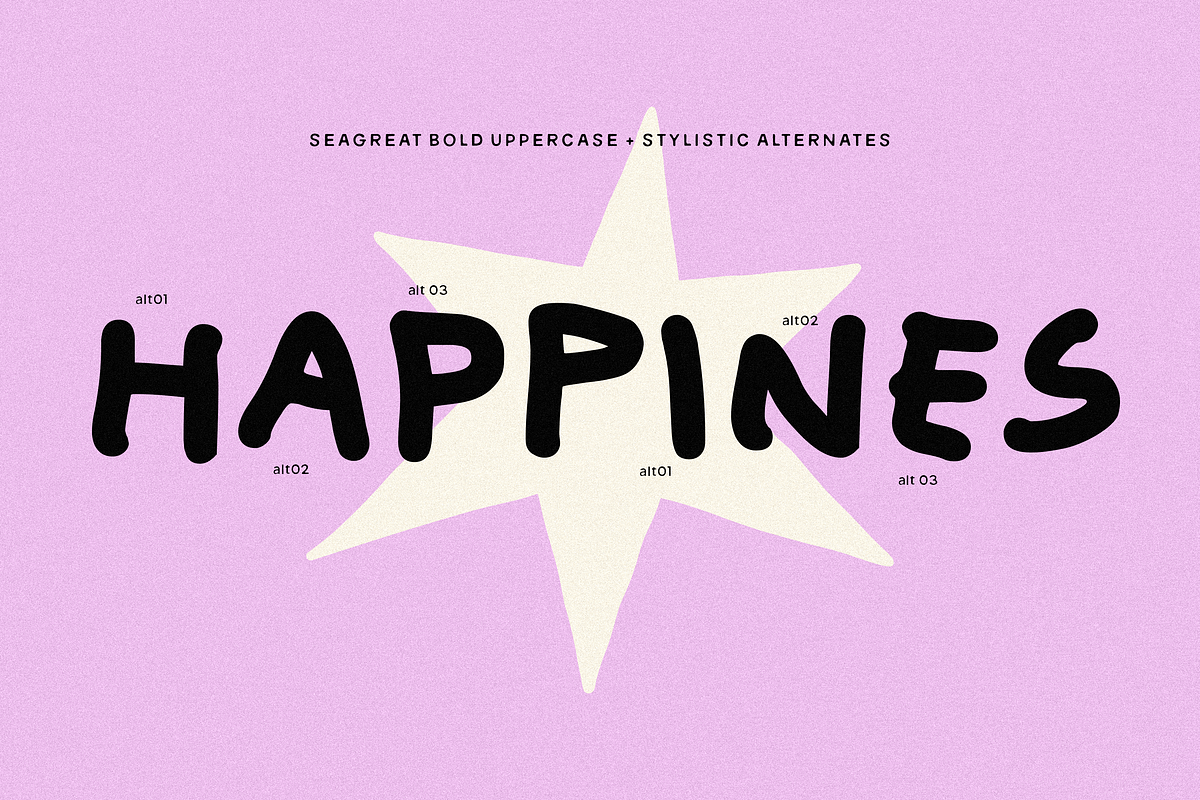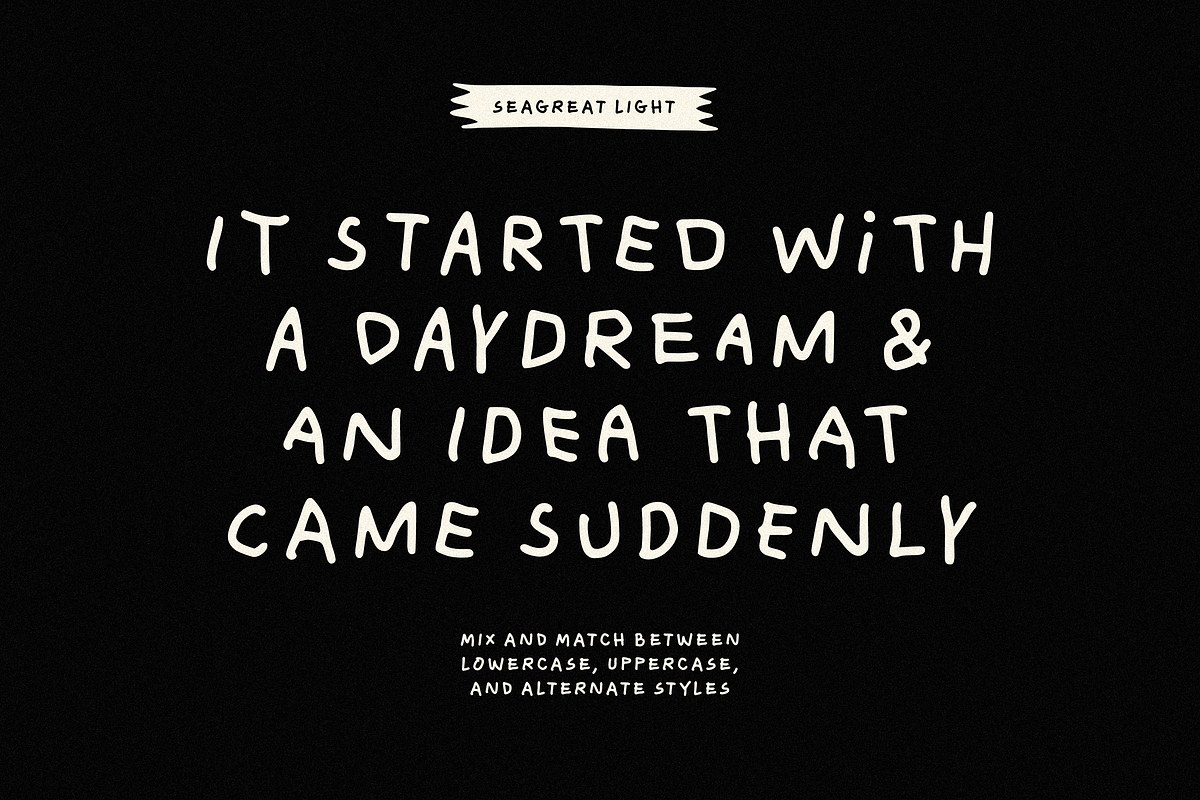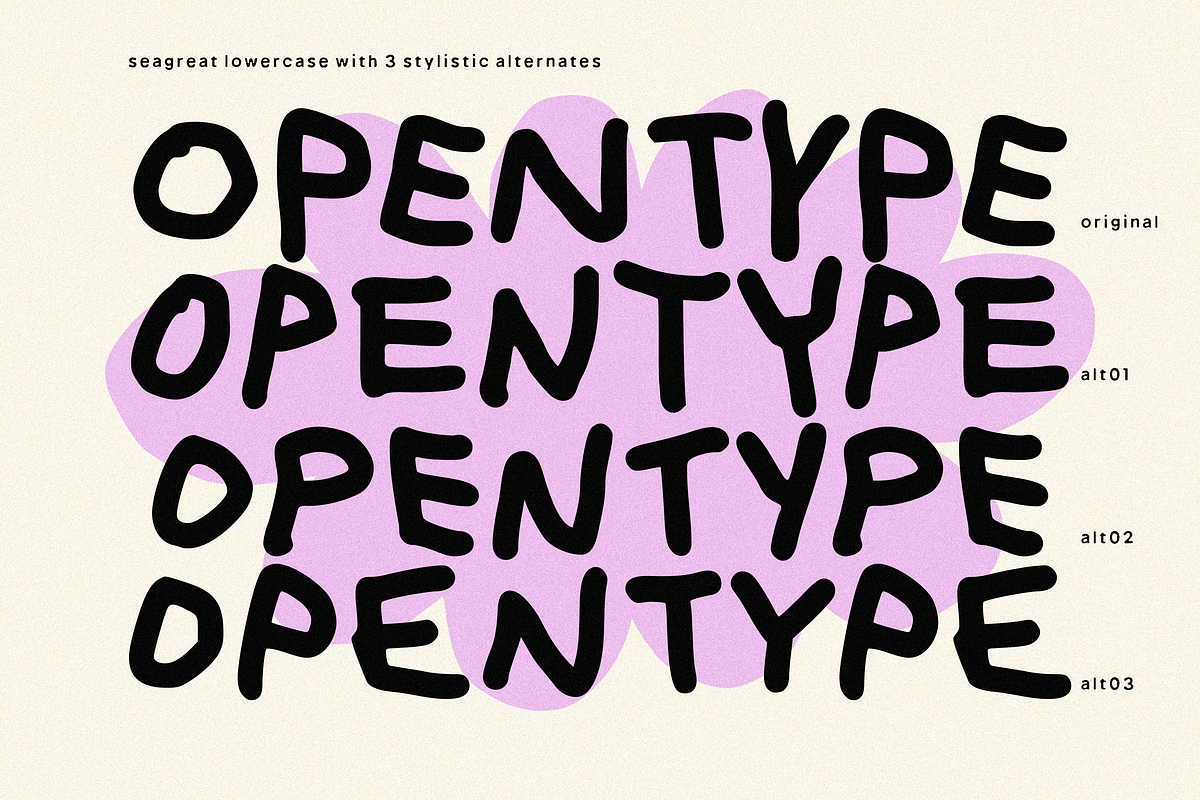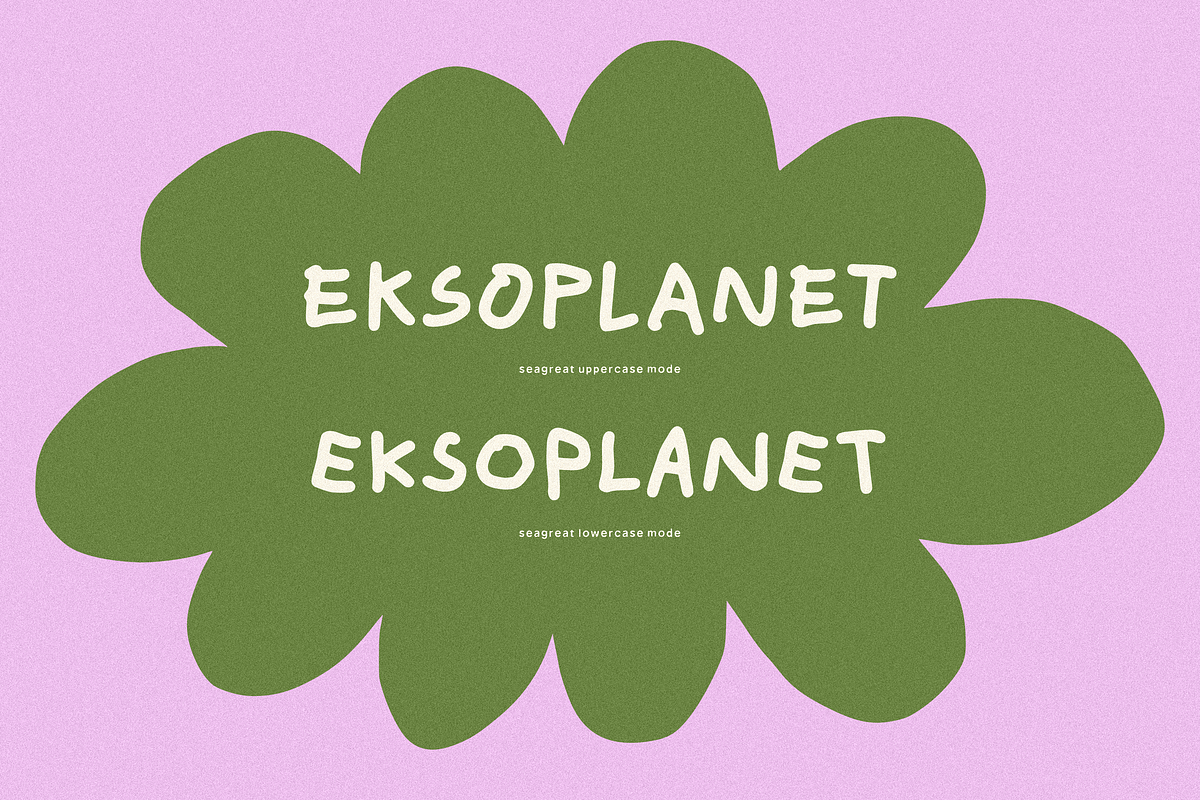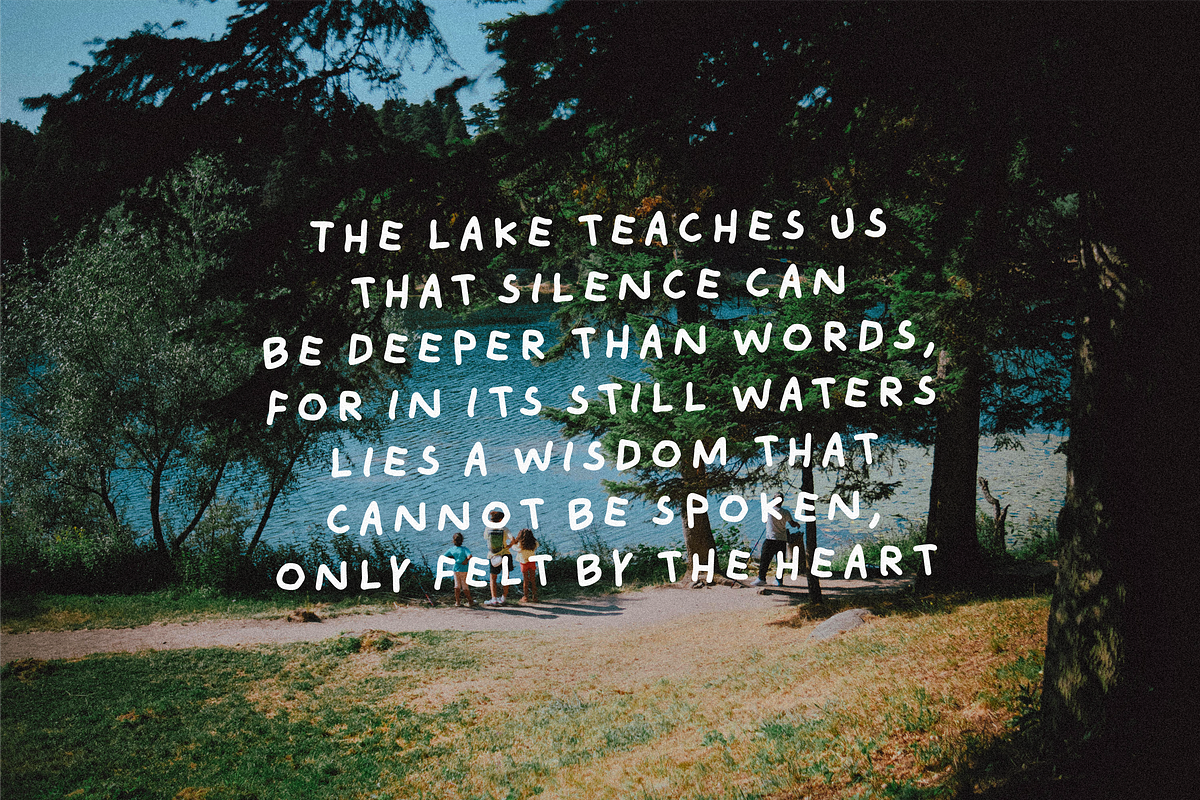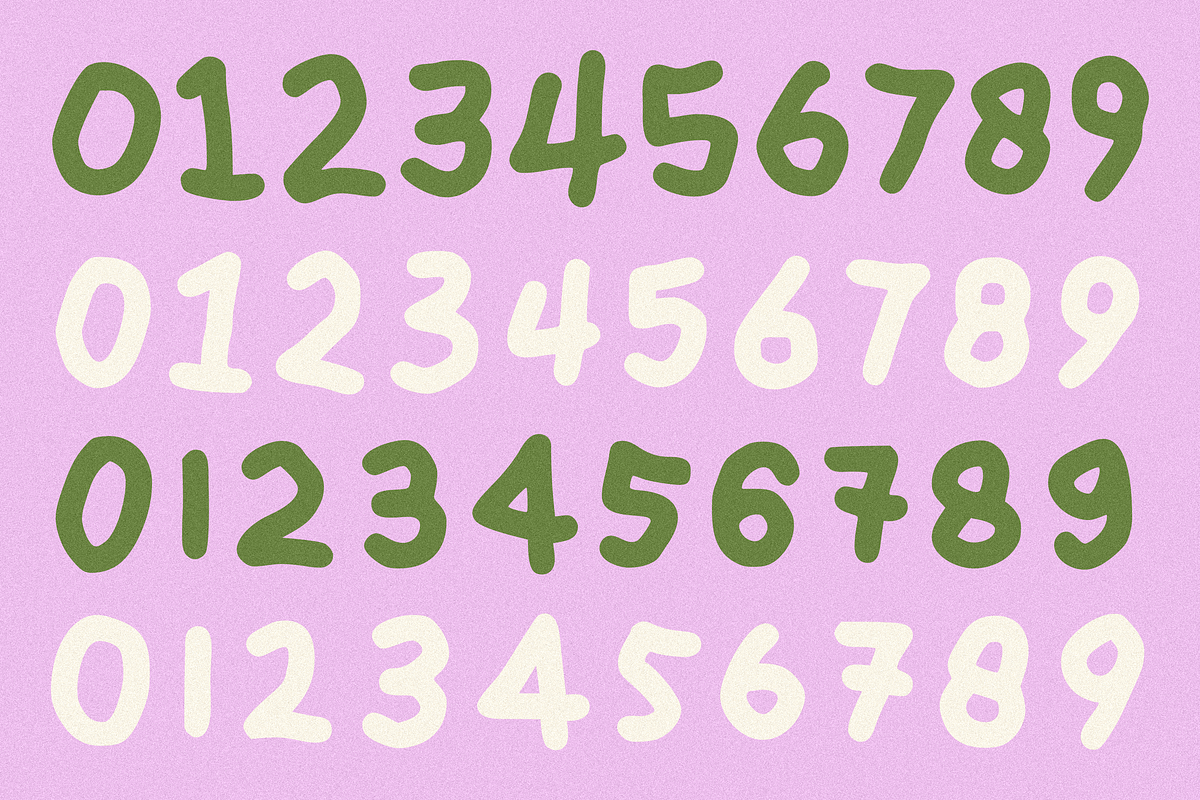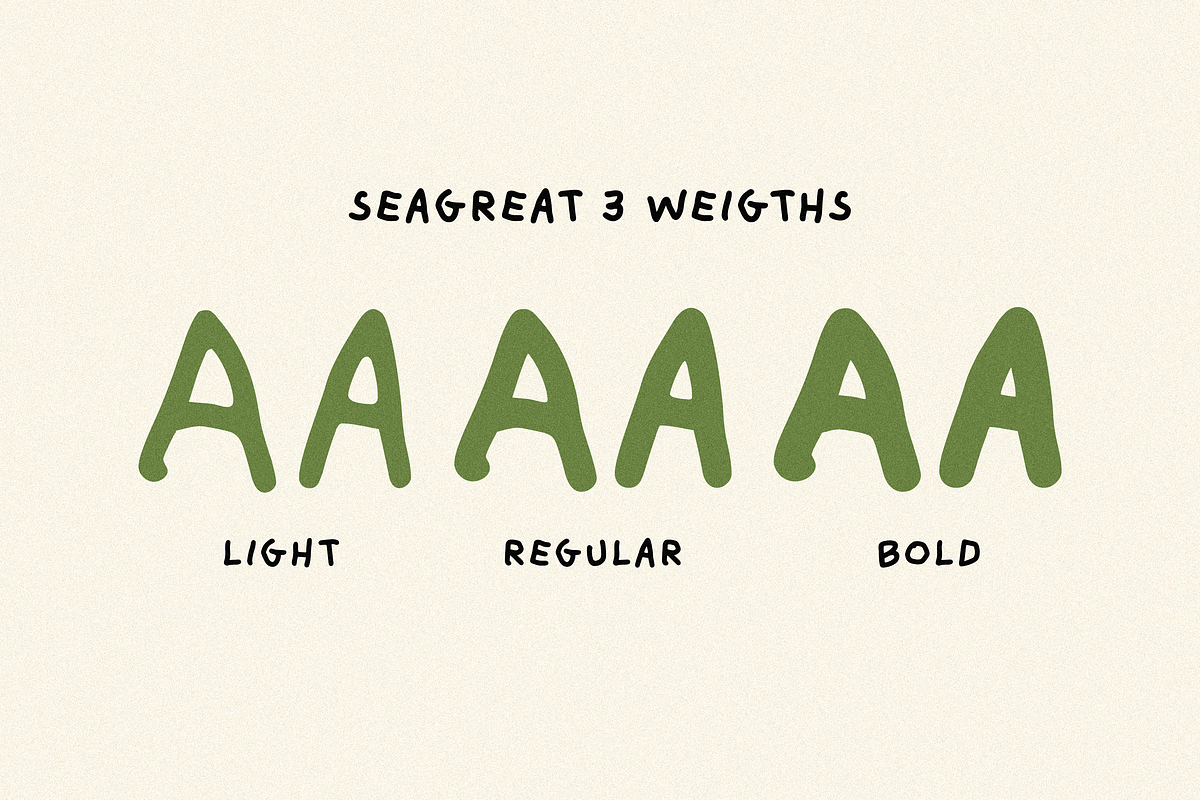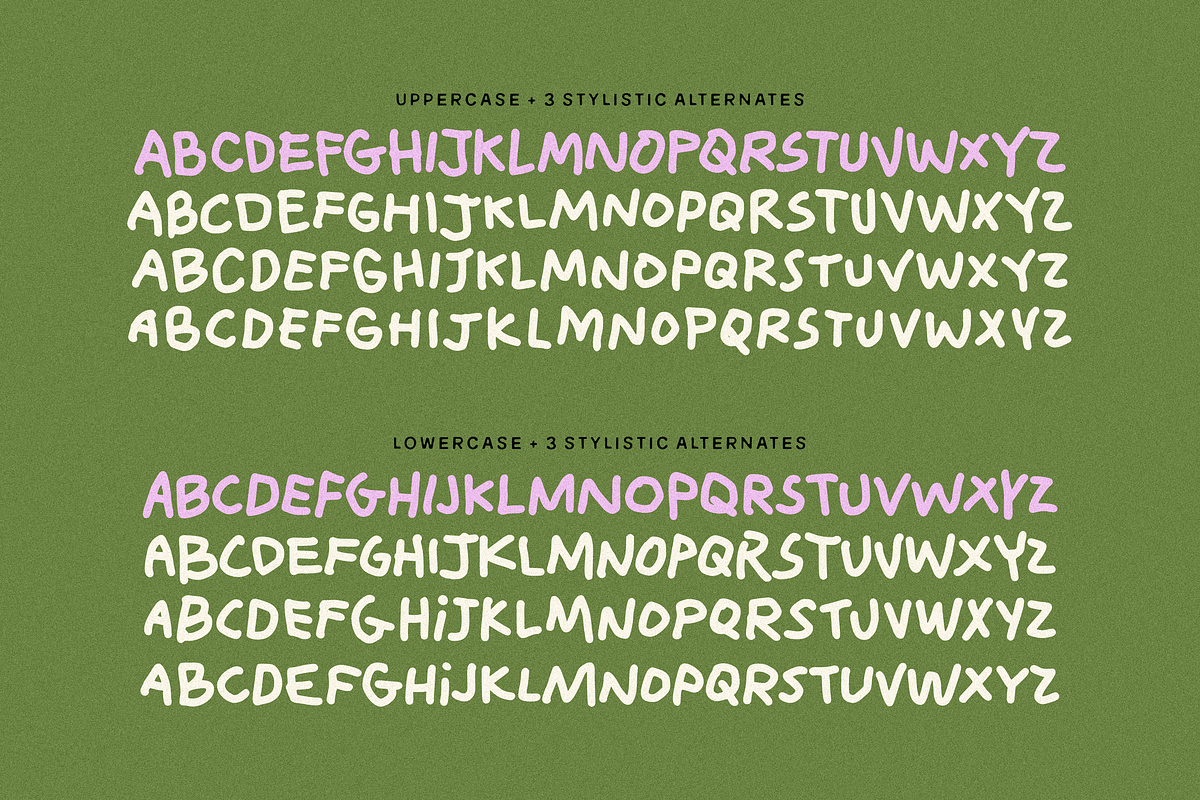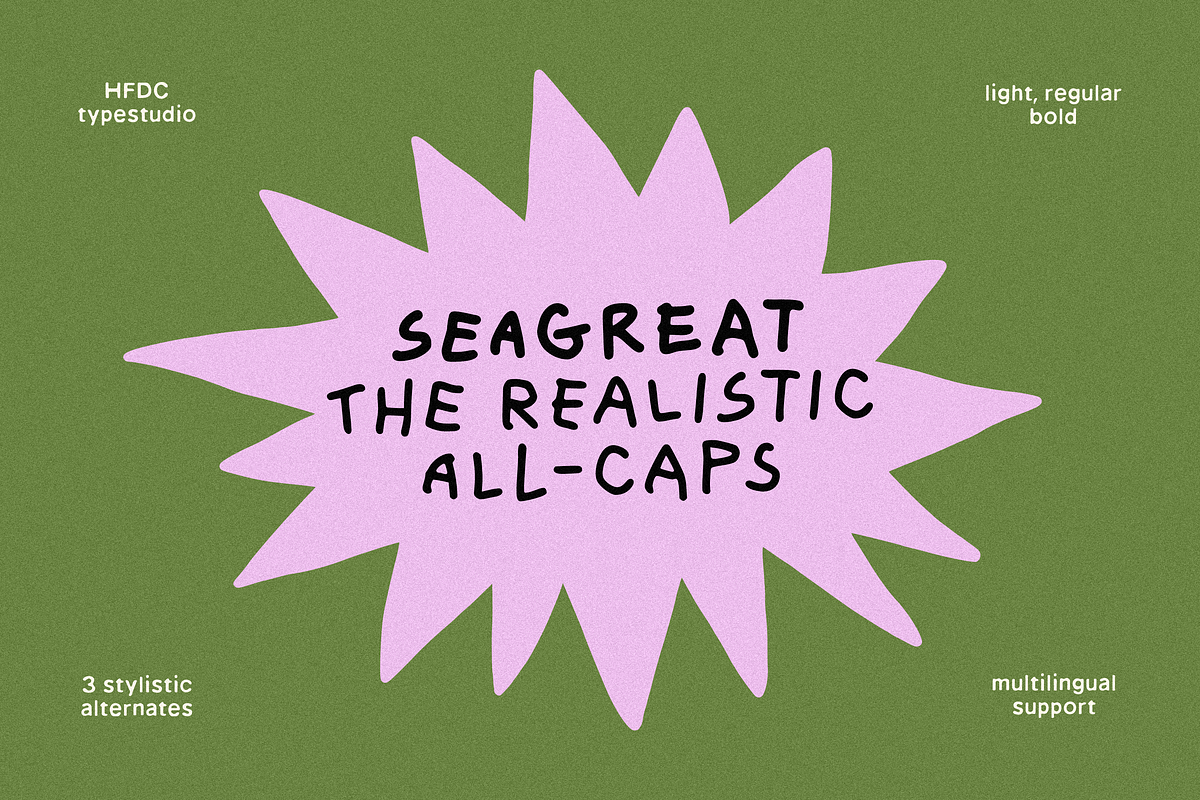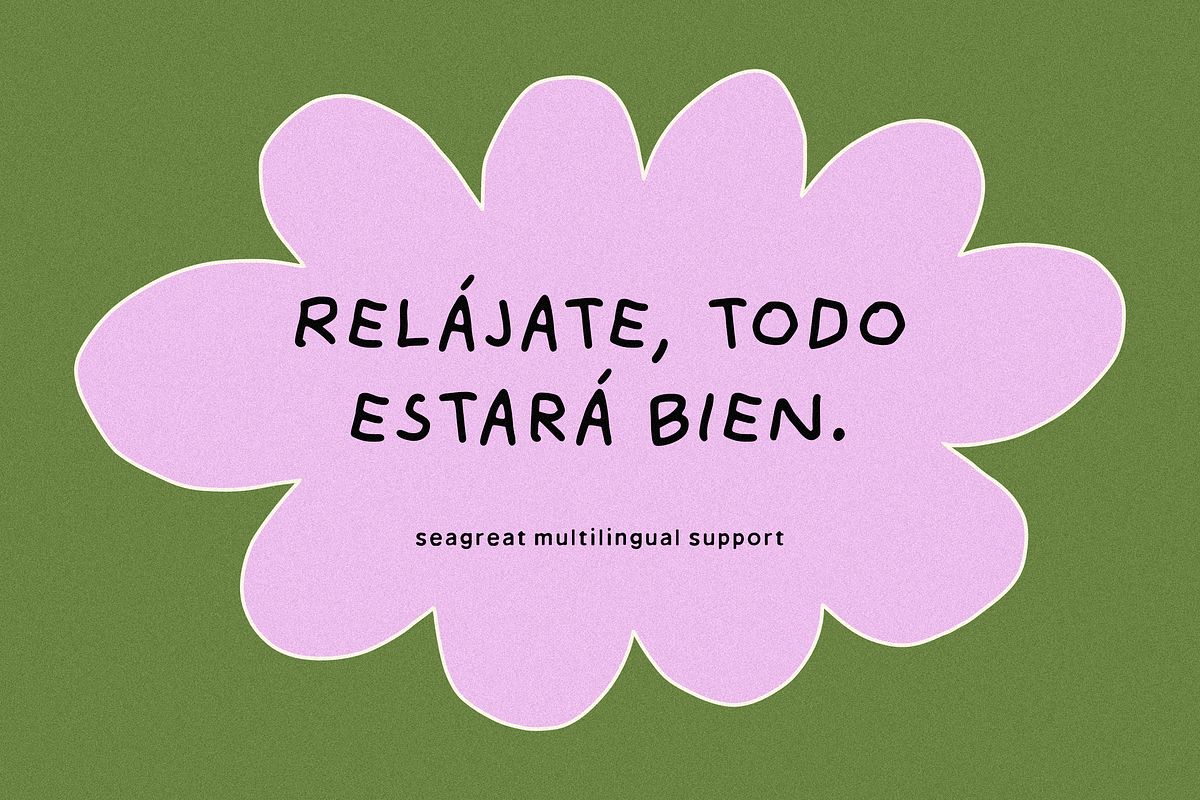
Sea Great Handwriting
Introducing Sea Great All Caps Handwriting, a delightful script font that captures the essence of playful, handwritten charm. This font is perfect for anyone looking to inject a sense of fun and whimsy into their branding and design projects. With its quirky, all-caps style, Sea Great is ideal for logos, packaging, and social media graphics that need to stand out. Its natural and realistic scribble effect gives a fresh, casual vibe that resonates especially well with children and families, making it a fantastic choice for kids-oriented products or promotions.
Designed with versatility in mind, Sea Great All Caps Handwriting features a comprehensive glyph set of over 200 unique characters, including stylistic alternates, ensuring that your text will never feel repetitive or bland. Available in TTF, OTF, WOFF, and WOFF2 formats, this font is suitable for both web and print applications. Whether you’re creating a playful poster, an engaging quote graphic, or memorable branding materials, Sea Great effortlessly brings a touch of laughter and joy to your designs. Embrace the fun and let your creativity flow with this charming handwritten typeface.
- All caps character
- 3 Weights (Light, Regular, & Bold)
- 3 Stylistic Alternates